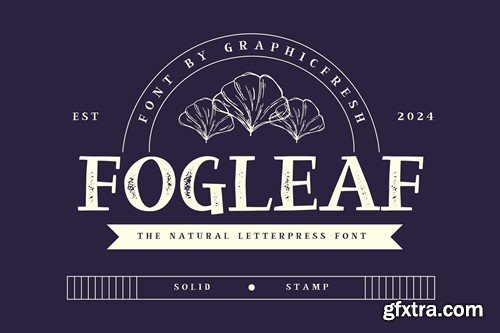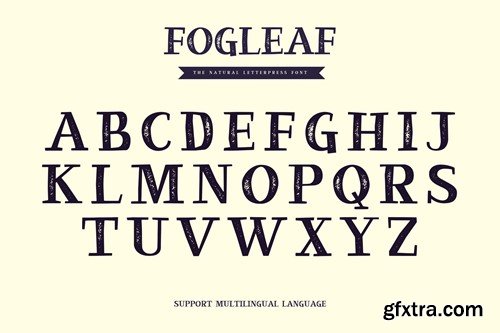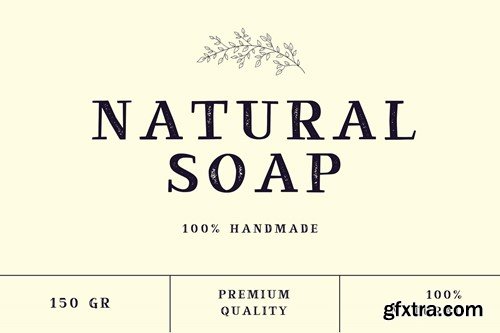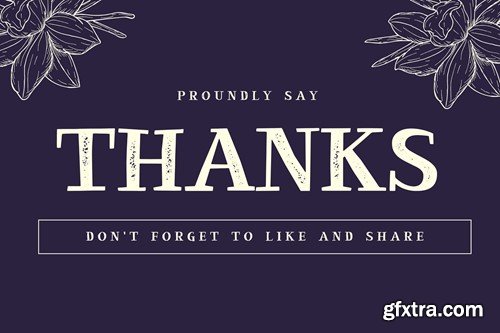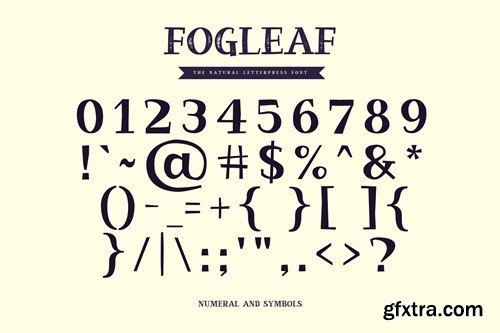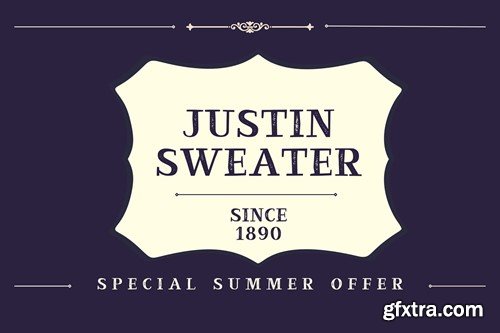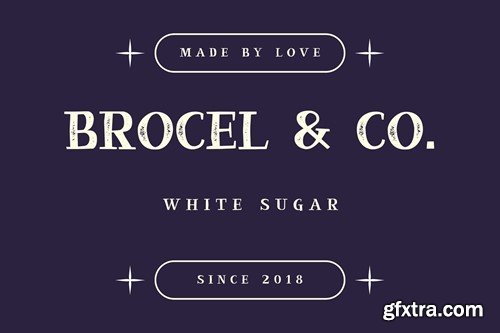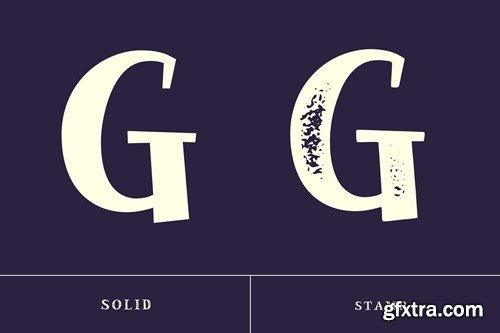
福格拉夫 - 天然letterpress字体
Fogleaf - The Natural Letterpress Font
Fogleaf - The Natural Letterpress Our Handwritten Serif Vintage Font is a unique blend of traditional serif elegance and the personal touch of handcrafted design. Ideal for projects seeking a vintage and letterpress look, this font adds a classic yet intimate feel. It's perfect for branding, editorial work, and print media, offering a balance of sophistication and approachability. When downloading, you will get files in OTF, TTF, and WOFF formats. To install it you just double-click on the file. Except for WOFF, because this file is for the web. If there are things you want to ask or problems you face with this font. Don't hesitate to ask us. Because we are very happy to help you. Thanks Graphicfresh